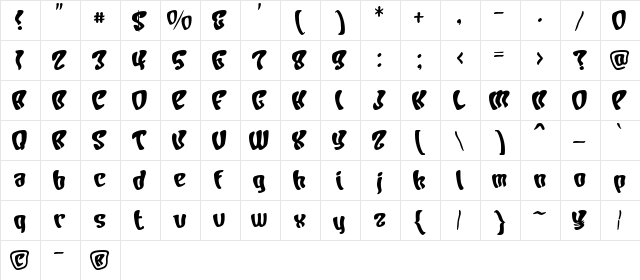
Charamel Bold
Design Context for Charamel Typeface
Charamel is a composed and adaptable typeface that performs quietly and consistently across a wide range of design contexts. The heavy weight commands attention and anchors typographic hierarchies.